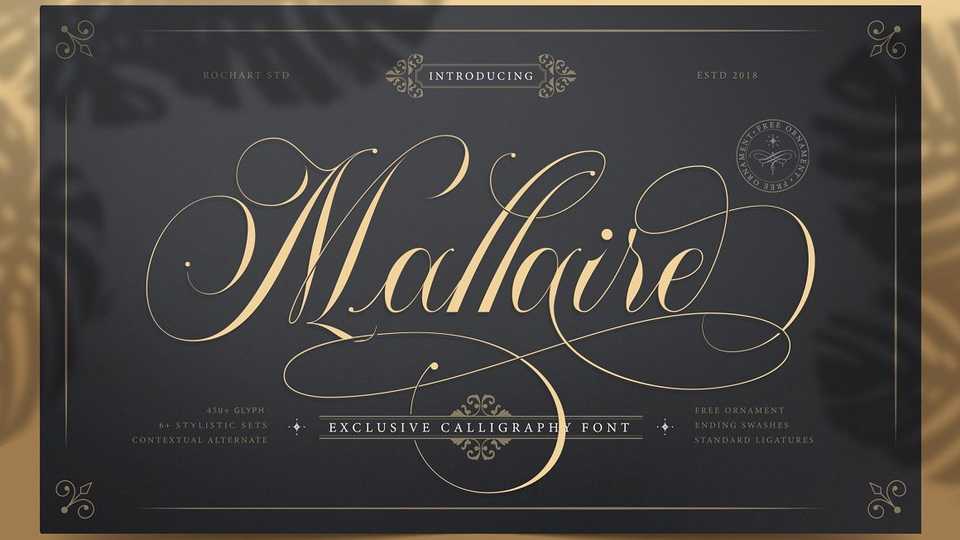
Download Mallaire font, a gorgeous calligraphy typeface with a exclusive style and a touch of classic, inspired by the handwriting of ancient manuscripts.
Designer: Roch Art